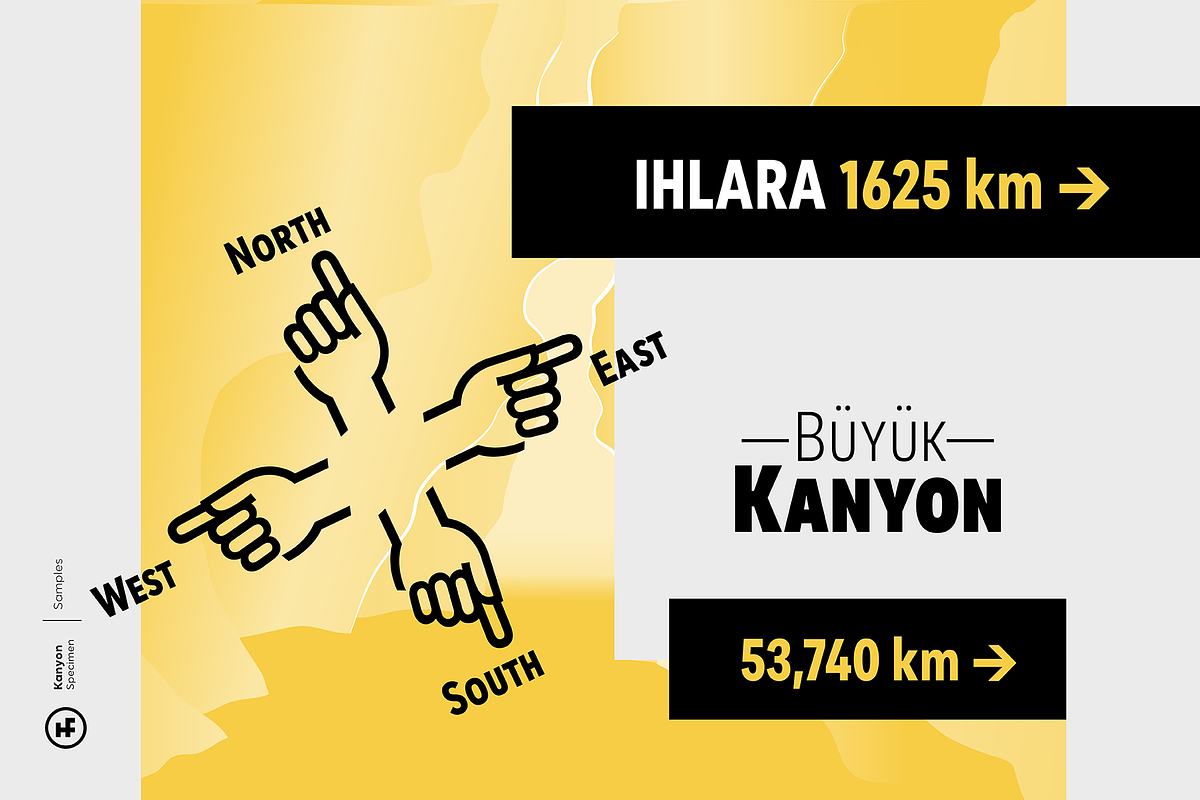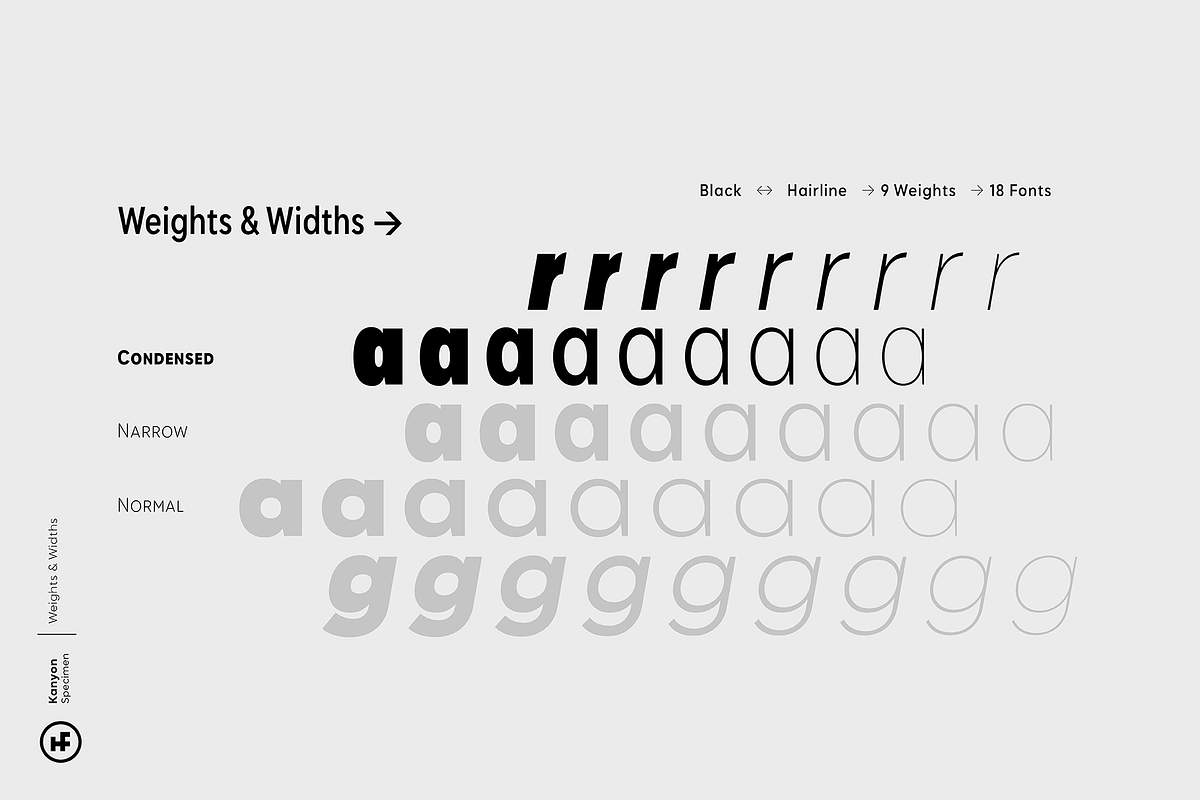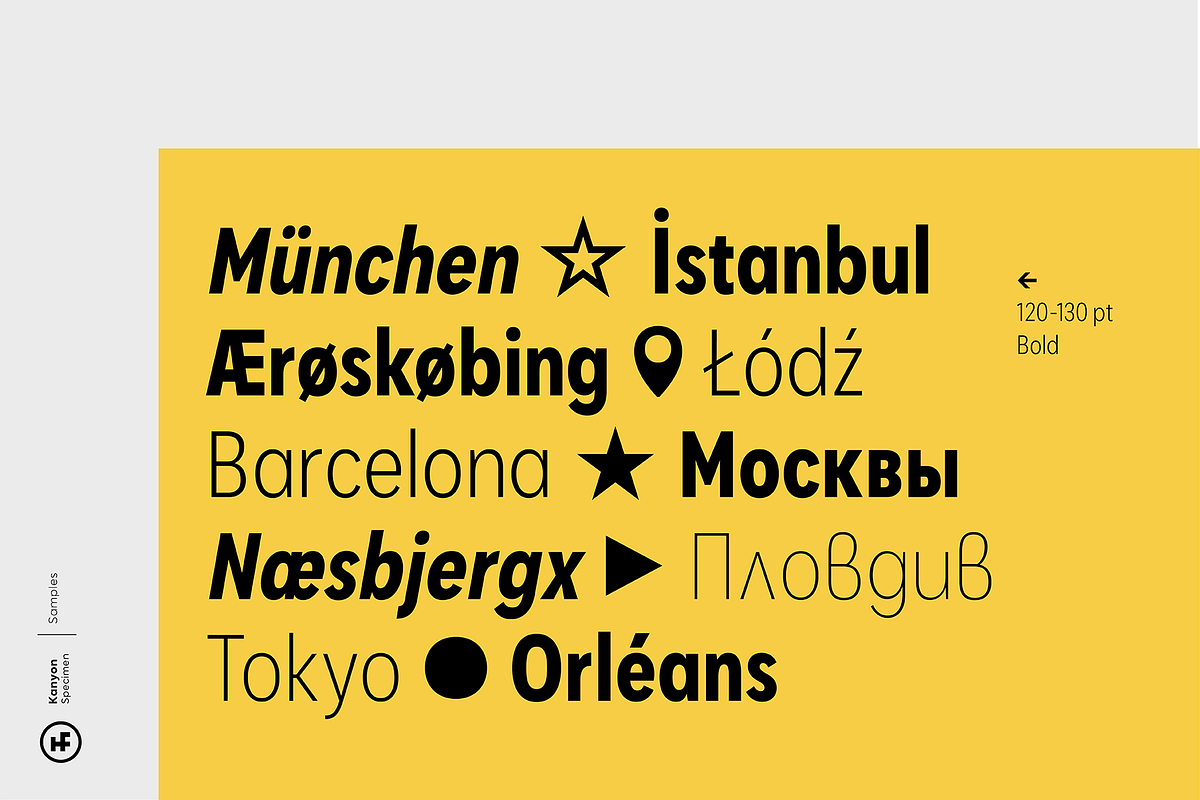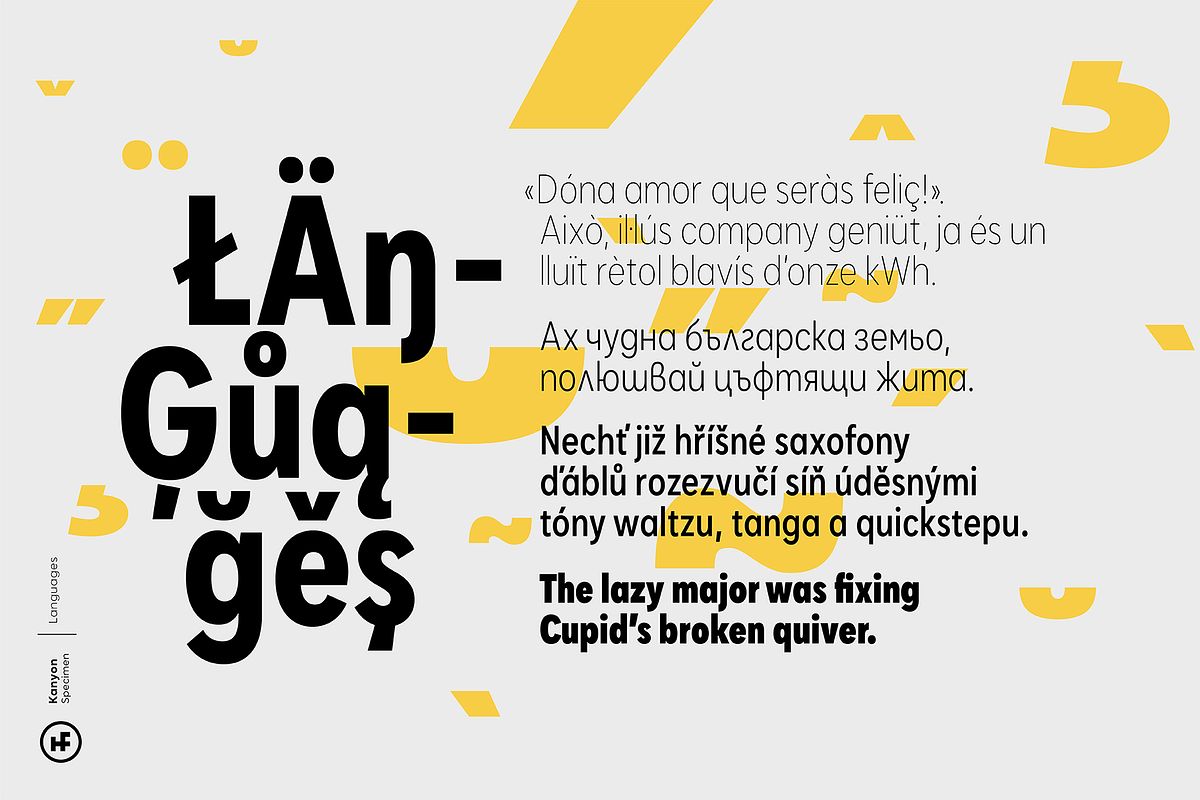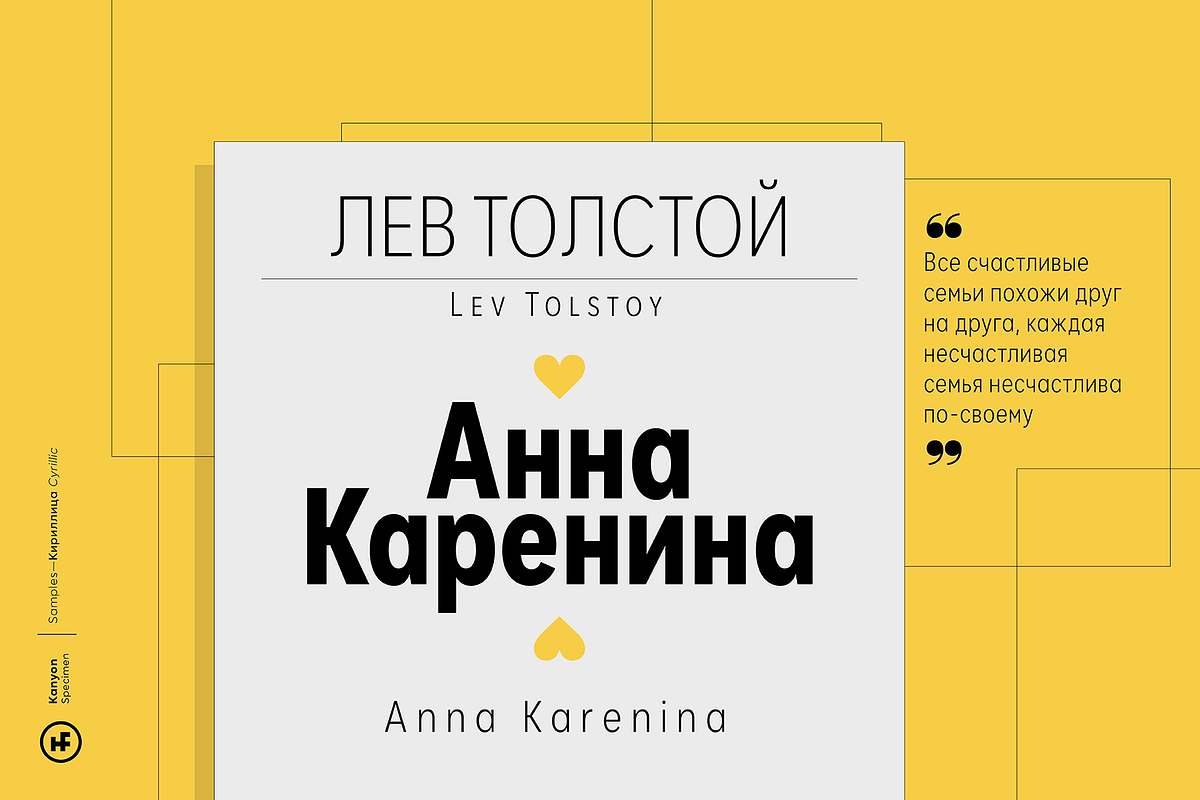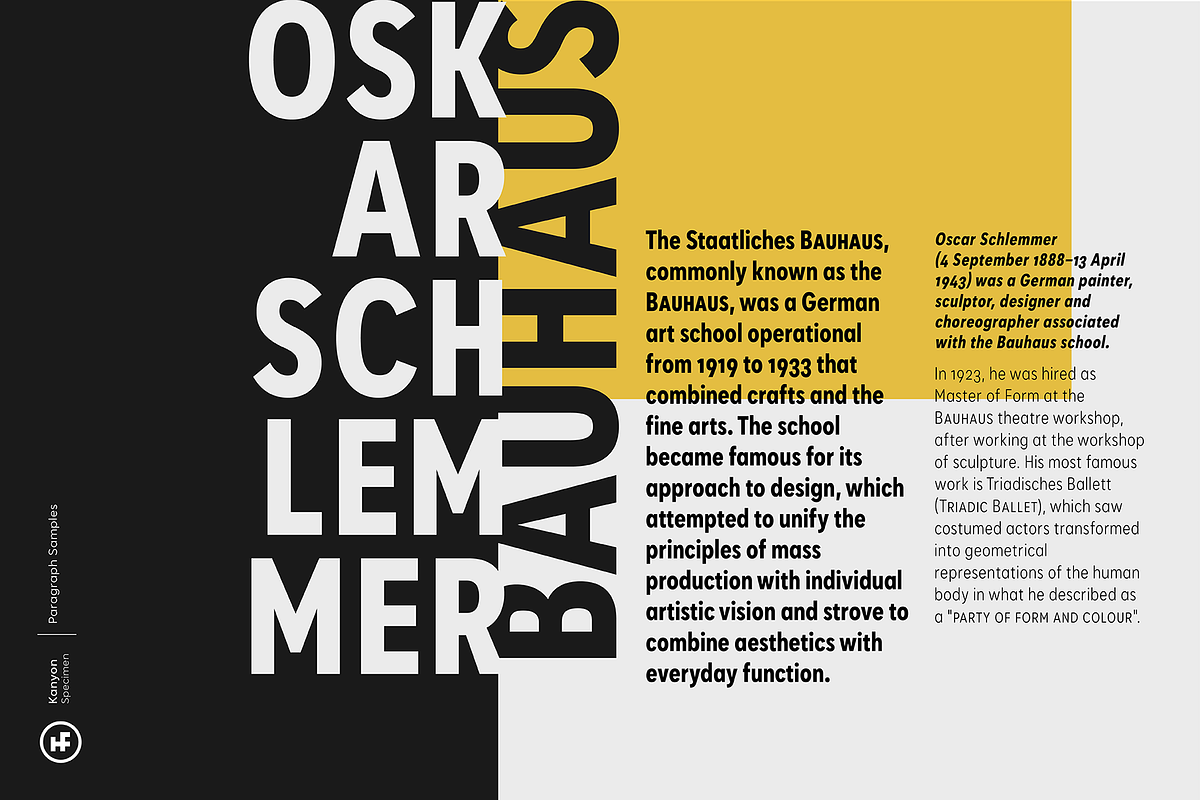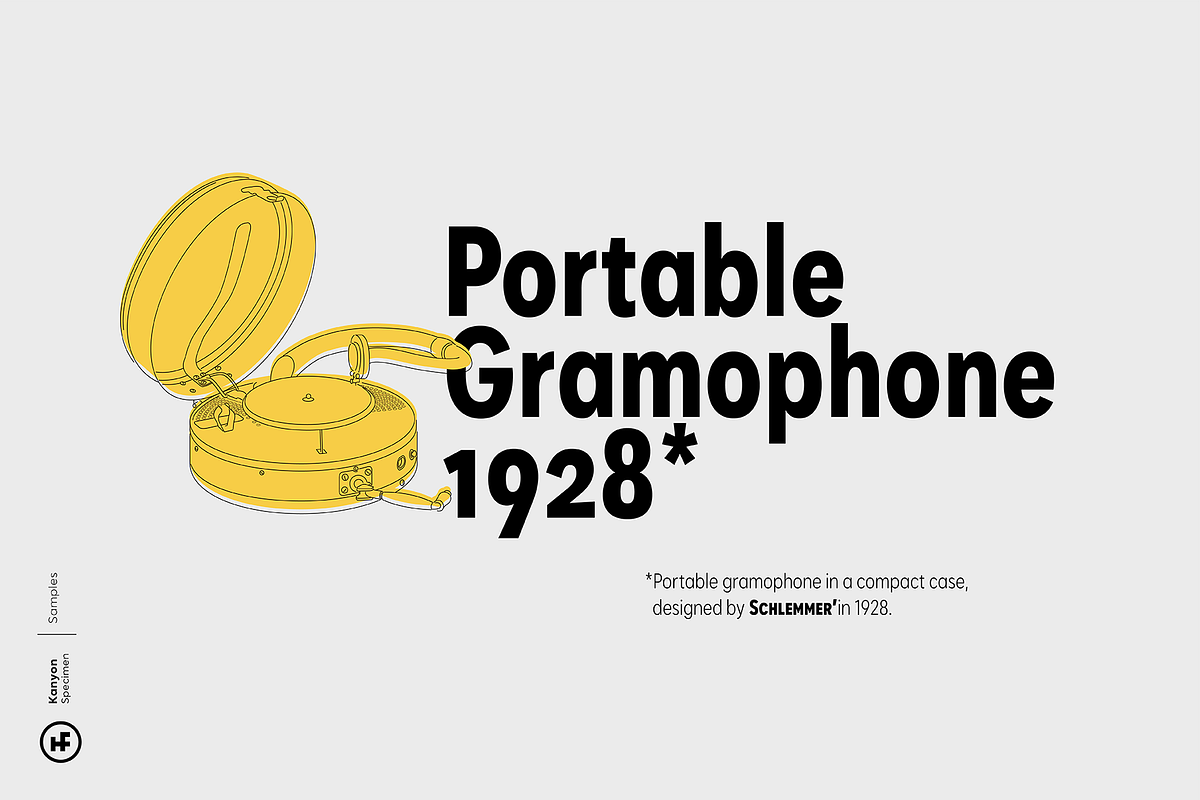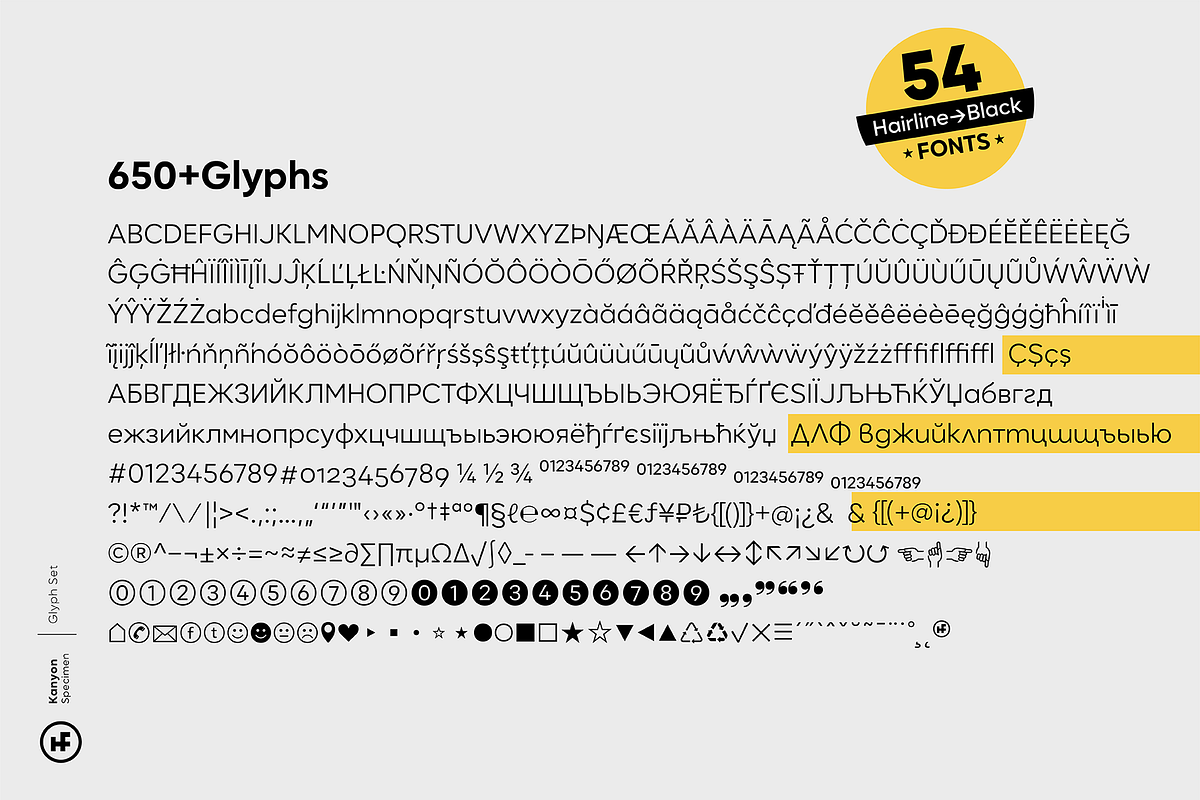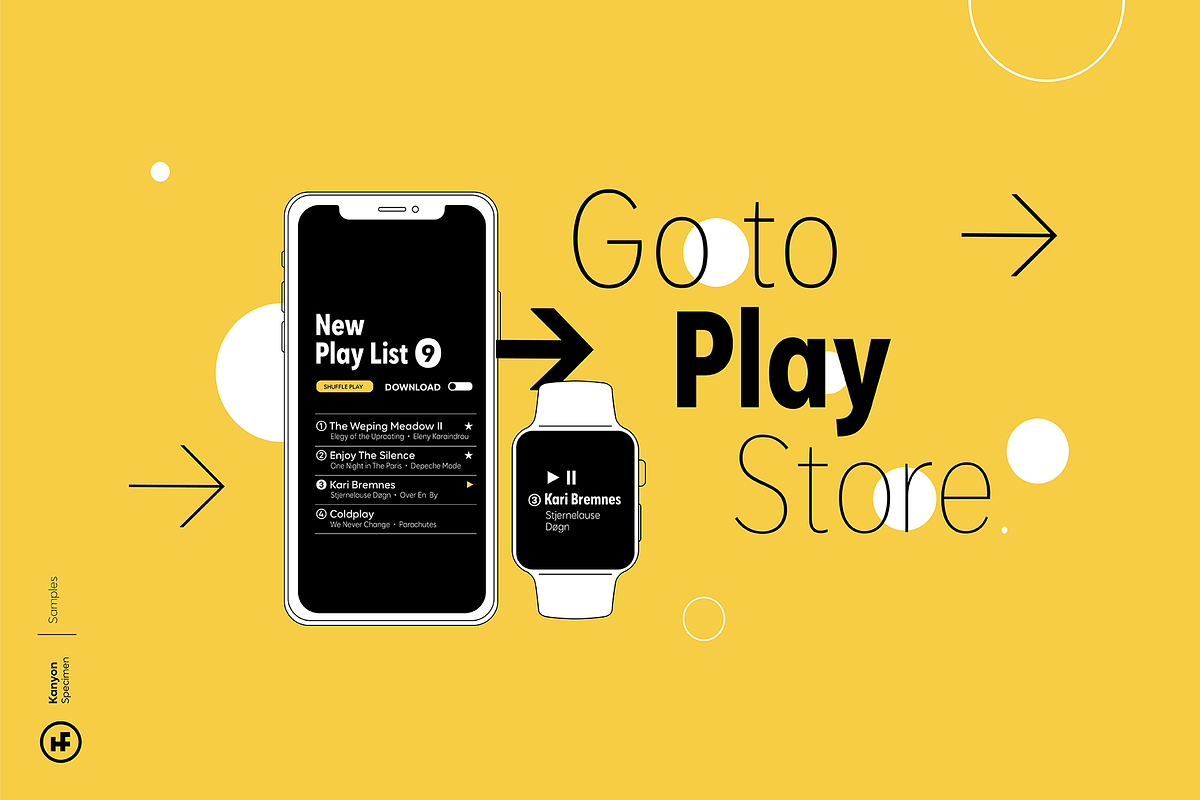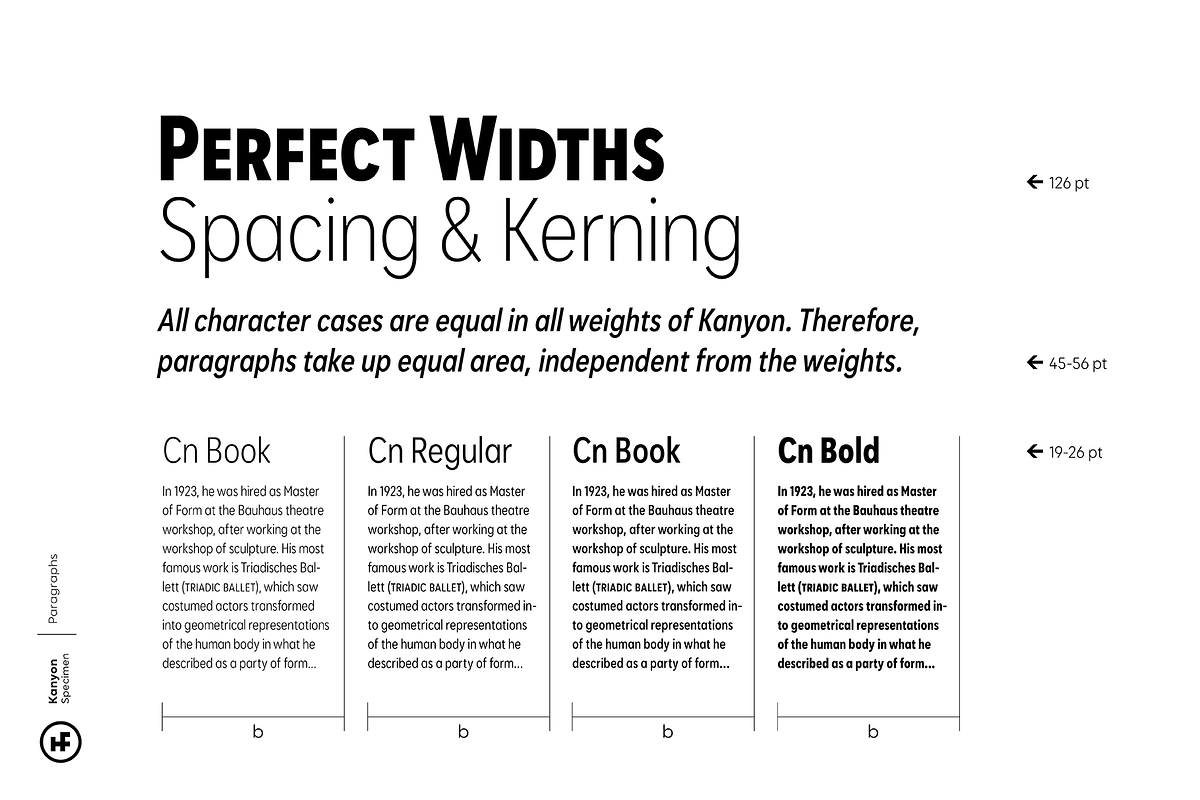
Kanyon Condensed
Kanyon is a family of typefaces created from basic geometric forms based on the equal width system. Its clean and neutral structure and 3 different widths provide ease of use in different design channels. With its rich OpenType features, multi-language support and small capital characters, it has a wider usage area than its counterparts. Ideal for packaging, labels, routing designs, mobile applications, brand designs, logos, all kinds of presentation and editorial designs, indoor and outdoor printing works.